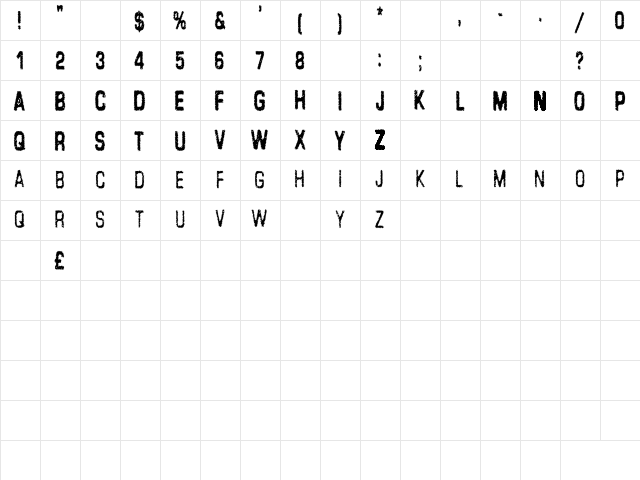
Lead Coat Regular
Design Context for Lead Coat Typeface
Lead Coat takes a measured approach to typography — its balanced proportions and neutral character make it a reliable workhorse for both digital and print work.